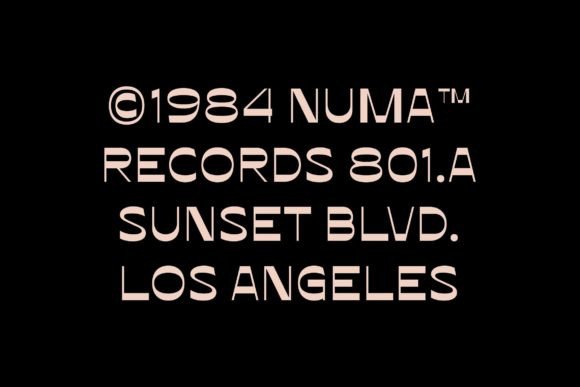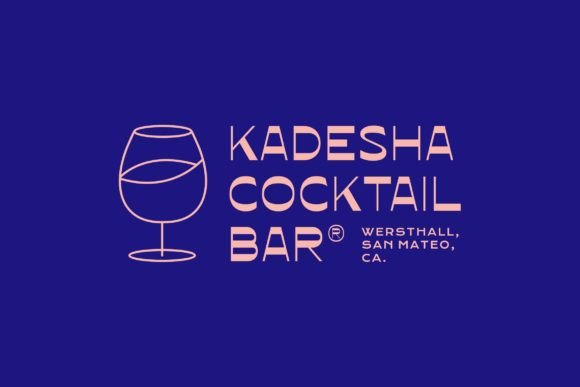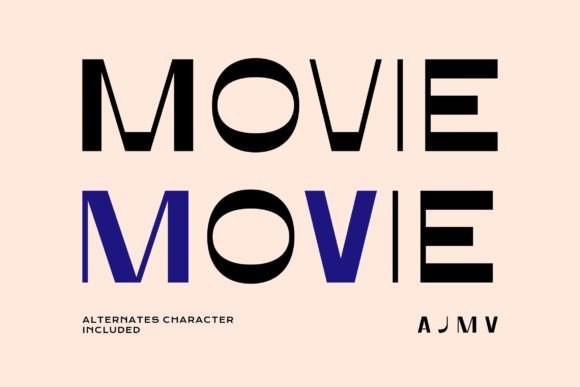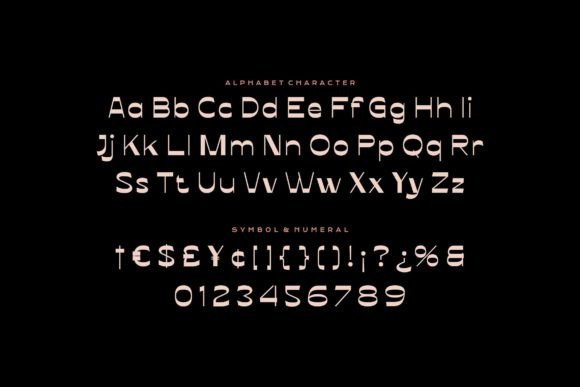
Introduction to Morela Delove Font
Have you ever stared at a blank page, desperately searching for the perfect font to bring your creative project to life? For designers, finding that elusive combination of style and sophistication can be a daunting task. But what if you stumbled upon a font that effortlessly balances understated minimalism with elegance and expression?
Meet Morela Delove Font, a reserve contrast display font that’s about to revolutionize your design game. With its extreme stroke contrast and wide characters, this font is perfect for logo design, branding, posters, and modern typography. Whether you’re a seasoned pro or a design newbie, Morela Delove Font is an invaluable resource that’s sure to elevate your creative projects to the next level.
Key Features of Morela Delove Font
- High-quality design for creative projects, ideal for graphic designers, artists, and writers.
- Unique, hand-crafted design that adds a touch of elegance and sophistication to any creative project.
Honest Review: Morela Delove Font
- Unique and elegant design aesthetic that’s perfect for luxury or high-end branding.
- Includes a range of weights and styles, making it versatile for various design applications.
- May not be suitable for casual or playful branding, as it has a more formal tone.
- Some users may find the font a bit too ornate or elaborate.
Overall, I’m impressed with the Morela Delove Font. Its high-quality design and range of styles make it a valuable addition to any design resource library. While it may not be suitable for every project, it’s definitely worth considering for luxury or high-end branding.
Morela Delove Font is ideal for a variety of creative projects, including:
- Infographics and charts
- Documents and publications
Alternatives to Morela Delove Font
Great Vibes is a high-quality, elegant script font ideal for creative projects that require a touch of sophistication. It’s available for free download and features a transparent background, making it easy to customize. When to use: Wedding invitations, quotes, and other elegant designs. Comparison to Morela Delove Font: Great Vibes has a more refined and classic look, whereas Morela Delove Font is more playful and whimsical.
Carolyna Pro is a modern, high-quality font perfect for designers looking for a versatile design resource. It’s available for free download and features a transparent background, making it easy to use in various creative projects. When to use: Branding, packaging, and other modern designs. Comparison to Morela Delove Font: Carolyna Pro has a more minimalist and sleek look, whereas Morela Delove Font is more decorative and playful.